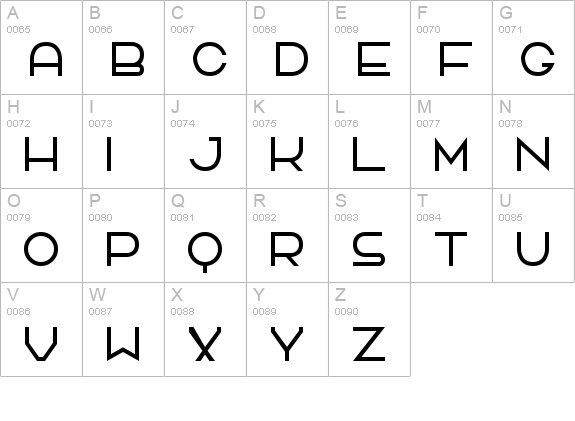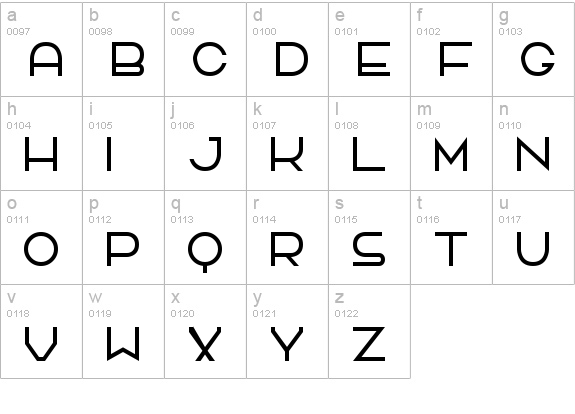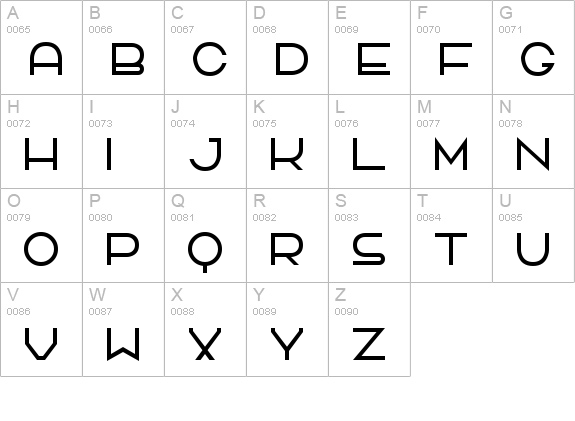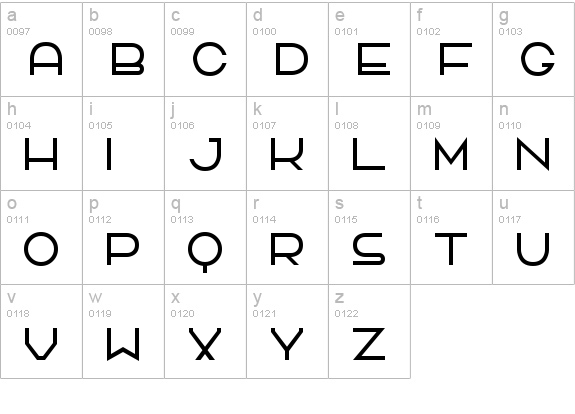
TPF Quackery font is a delightful and whimsical typeface that brings a playful and lighthearted touch to any design project. With its charming and quirky letterforms, this font is perfect for adding a touch of fun and creativity to your designs. The TPF Quackery font is not only visually appealing, but it also offers a wide range of versatility. Whether you're designing a poster, creating a logo, or crafting a greeting card, this font is sure to add a unique and eye-catching element to your work. One of the best things about TPF Quackery font is that it is free! That's right, this font is freely available to download at FontsMarket.com. So, whether you're a professional designer or someone who simply enjoys experimenting with different fonts, you can easily access and enjoy this font without any cost. The playful and lively nature of TPF Quackery font makes it ideal for a variety of design projects. Its bold and rounded letterforms exude a sense of joy and energy, making it perfect for children's books, party invitations, or any project that requires a touch of whimsy. Not only does TPF Quackery font offer a visually appealing aesthetic, but it is also highly legible. The carefully crafted letterforms ensure that your message is communicated clearly and effectively, making it a practical choice for any design project. In conclusion, TPF Quackery font is a free and delightful typeface that brings a playful and lighthearted touch to your designs. Whether you're looking to add a touch of whimsy to a children's book or create a fun and memorable logo, this font is sure to meet your needs. So go ahead, download TPF Quackery font for free at FontsMarket.com and let your creativity soar!